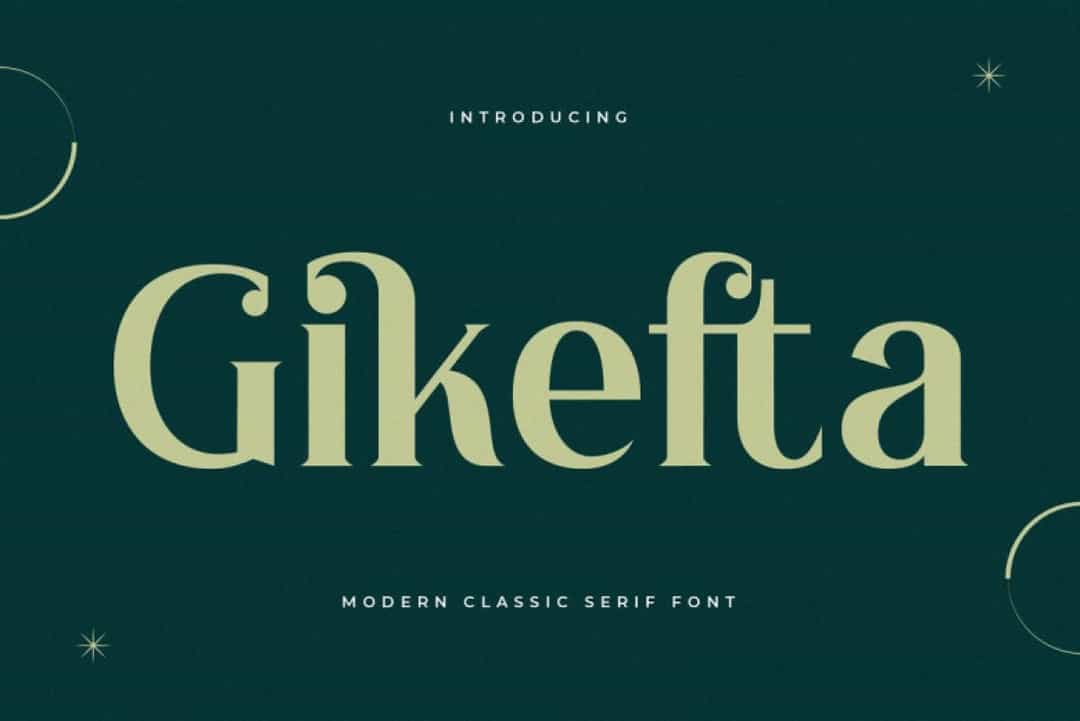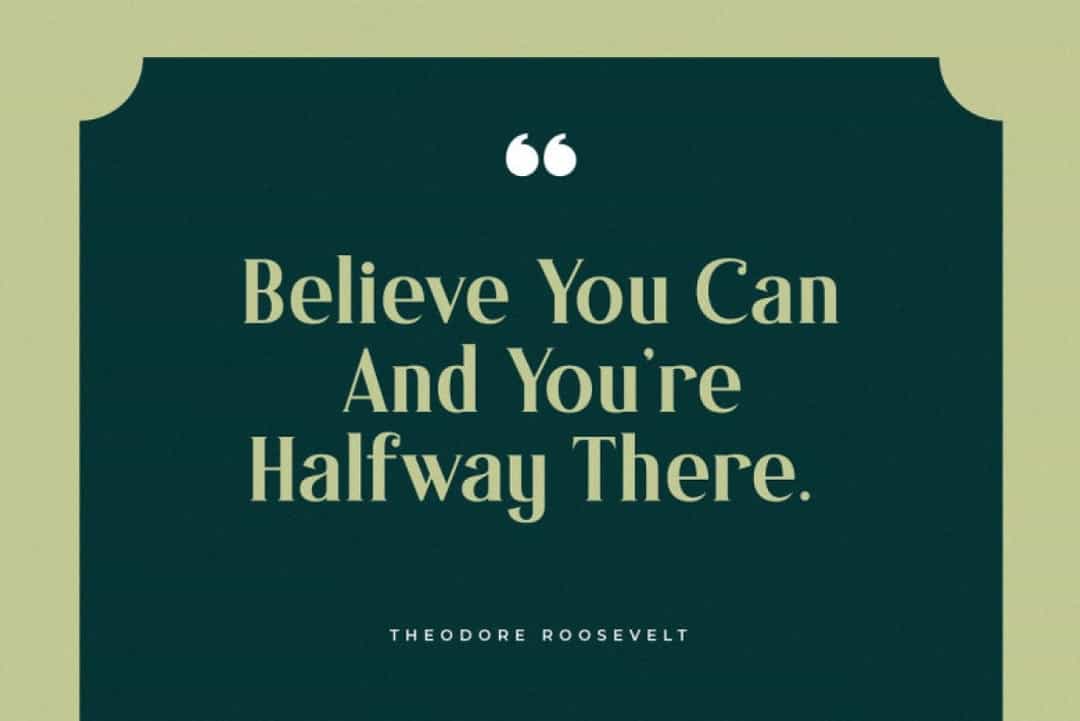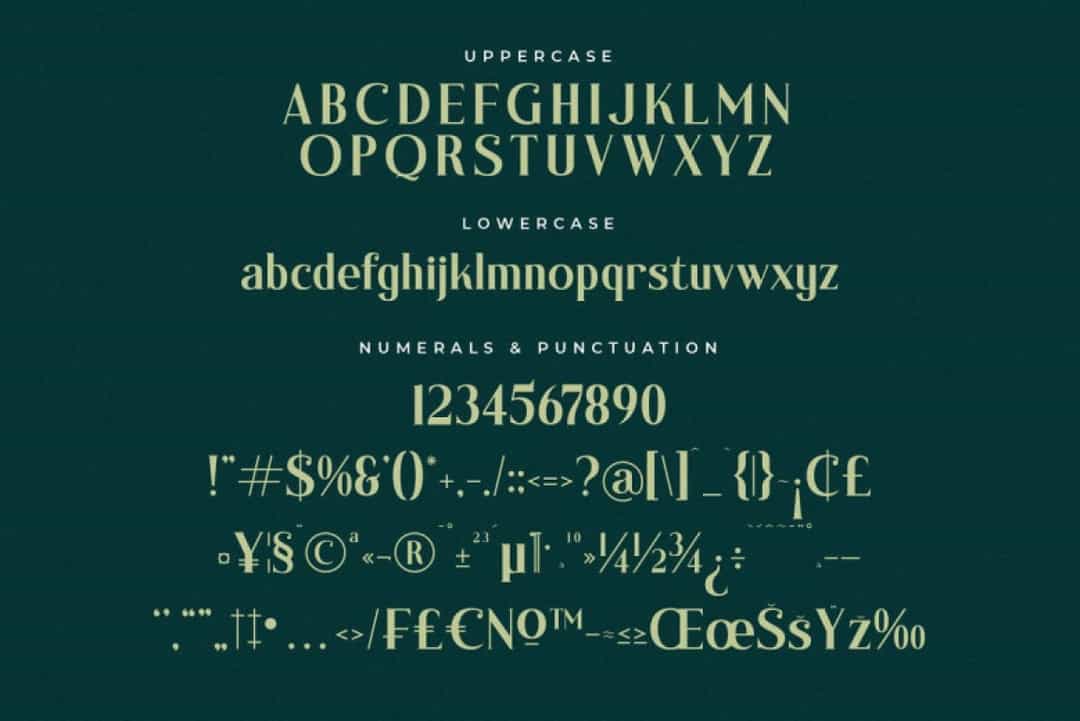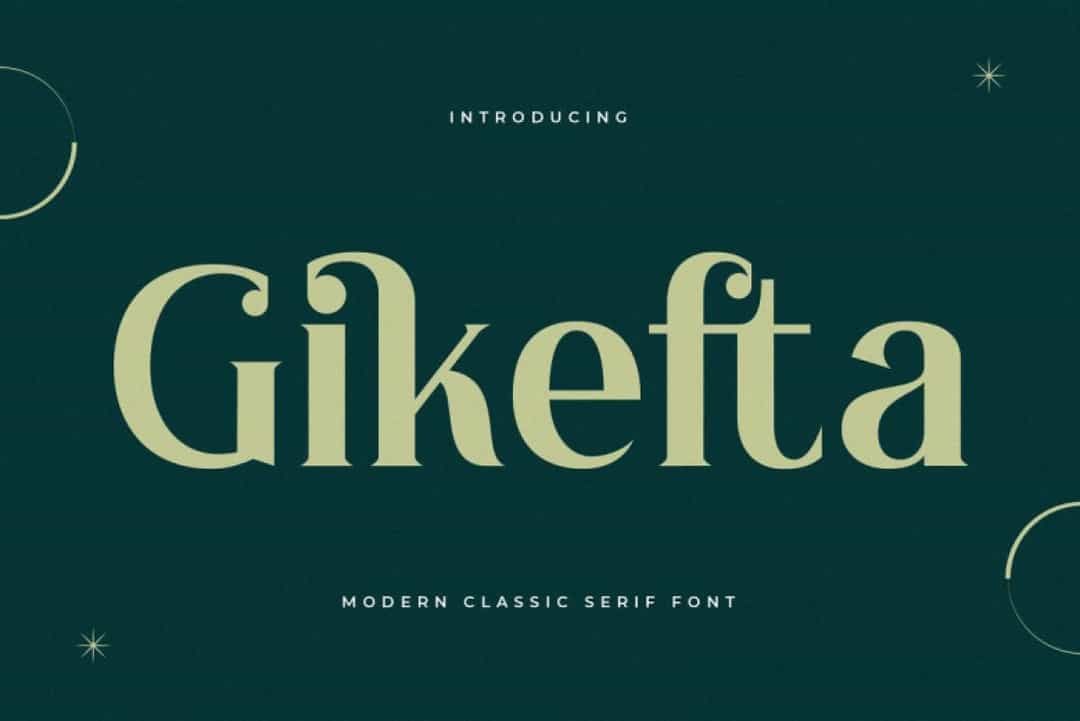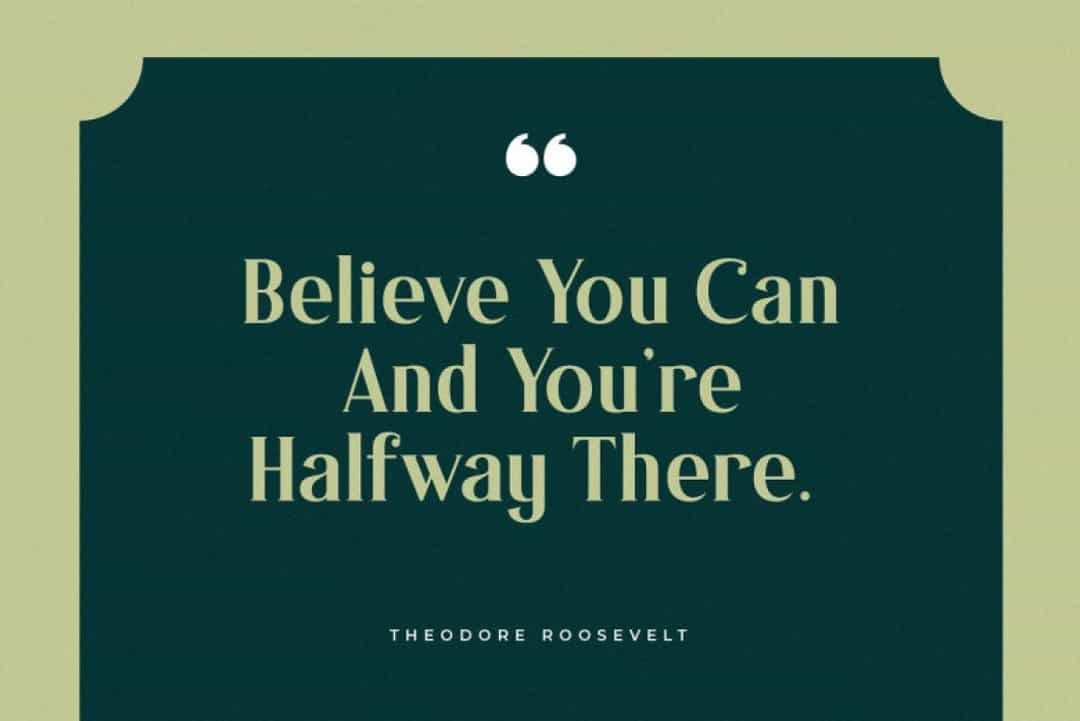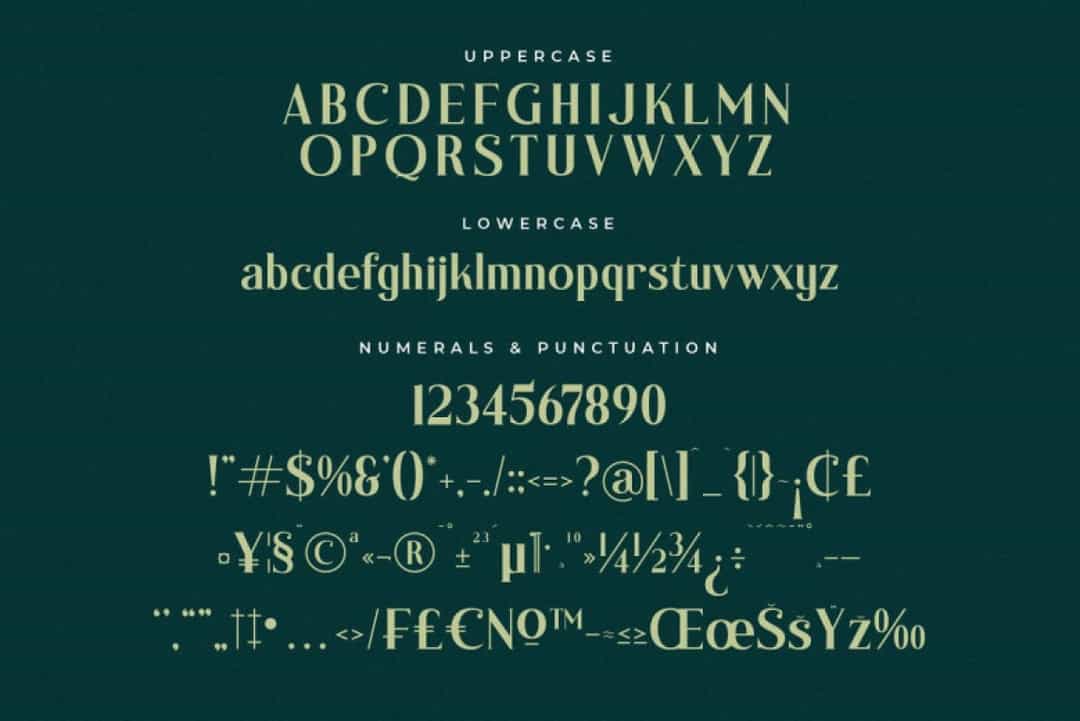
Letterena’s Gikefta Modern Classic Serif Font is ideal for logo design, branding and homeware patterns as well as packaging products including packaging of products such as mugs posters quotes shopping bags book covers or name cards.